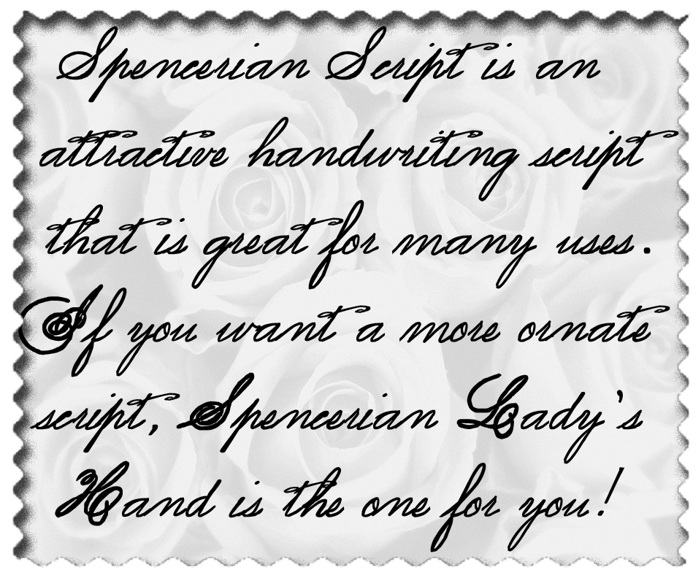
Spencerian Lady's Hand SW Font
Spencerian Script SW Style
This is created from Spencerian Lady's handwriting guides in style in the late 1800s through early 1900's. It features many long curls and swirls that were commonly used by ladies of this time period. You will notice that lady's were expected to use a very ornate form of handwriting, which I have called Spencerian Lady's Hand. For business uses by men, a less ornate form was used. I call it Spencerian Script here. Hope you enjoy them.